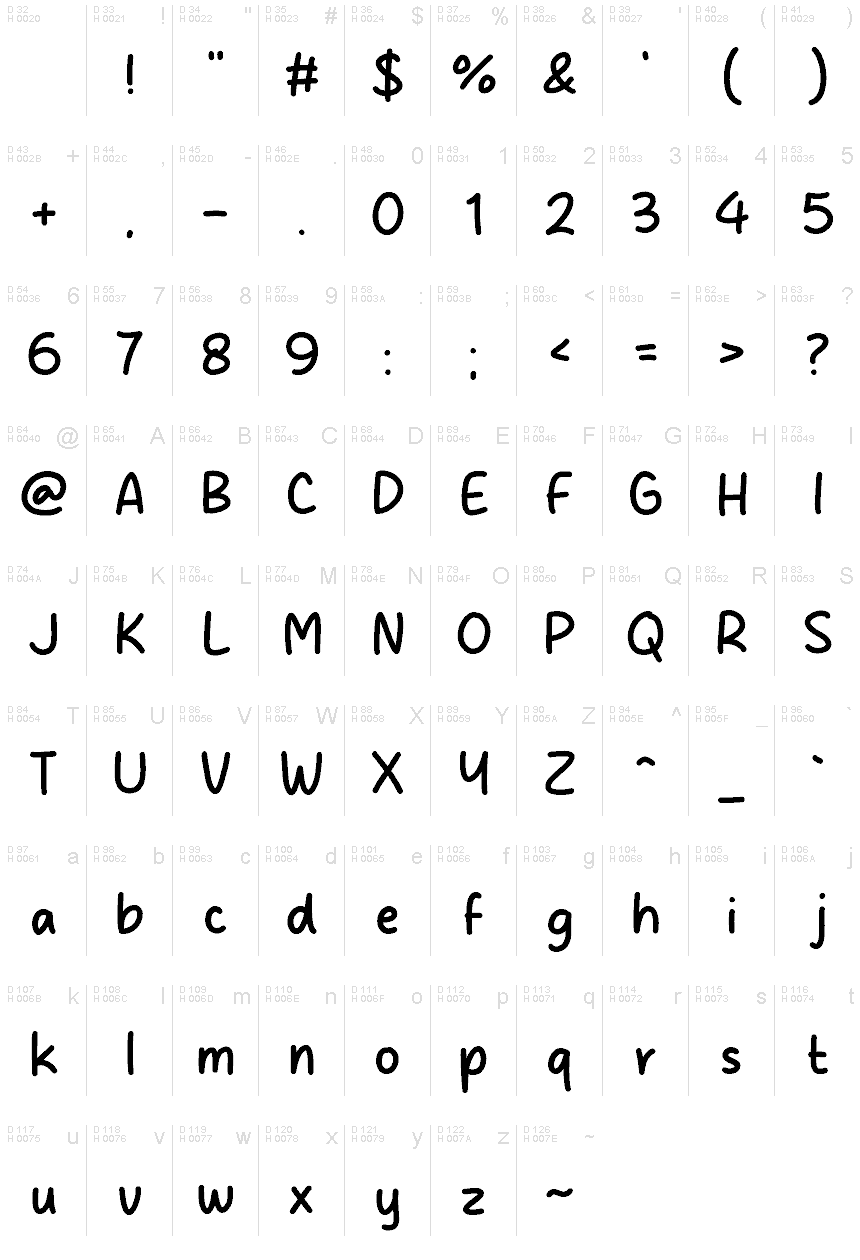
Over Light
Over Light font by MJType is a free handwritten font that channels a friendly, approachable, modern, and casual tone. It is suitable for contemporary applications in branding and advertising due to its handmade feel and warm atmosphere.
The typeface works exceptionally well in packaging design, websites, blogs, personal stationery design, apparel design, homeware design, posters/designs of quotes. Also suitable for social media posts and more.